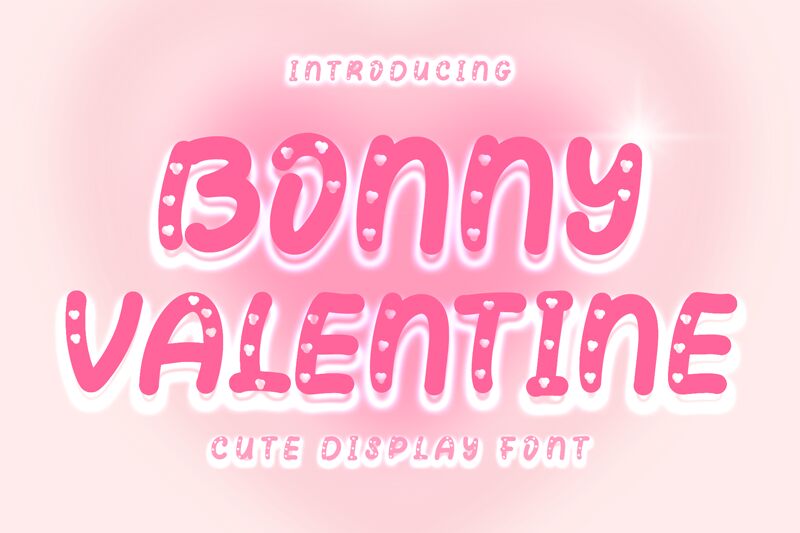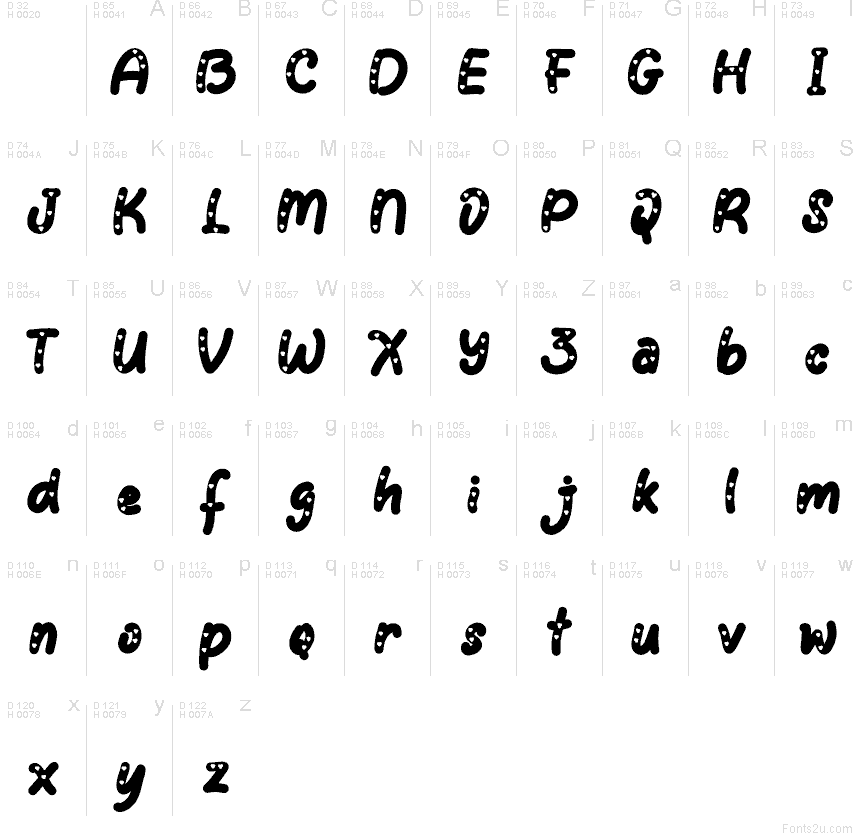
Bonny Valentine Demo
Bonny Valentine font by Yoga Letter is a free decorative typeface that turns every word into candy-coated lettering. Plump strokes, playful curves, and heart-shaped “spots” give it the feel of hand-cut paper or frosted icing, so text looks sweet, bold, and instantly affectionate. It has a friendly, bouncy rhythm that reads clearly even at smaller sizes while still feeling rich and handmade.
Using Bonny Valentine, you can bring extra charm to Valentine’s cards, kids’ party invitations, classroom decor, sticker designs, social media posts, and packaging for treats or gifts. This free font shines when used big and colorful, then paired with a clean sans-serif for small supporting text to keep layouts readable and balanced.